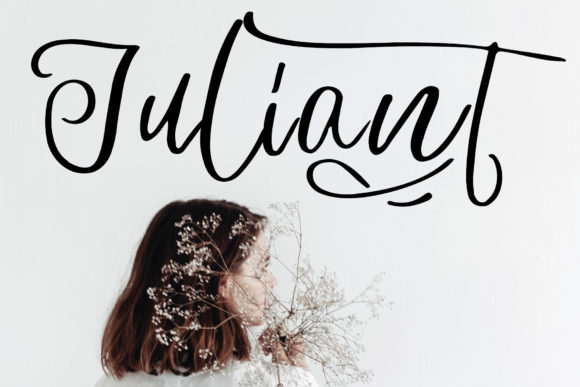
In a world saturated with mundane and predictable fonts, Juliant Font emerges as a dazzling beacon of originality and charm, promising to transform your branding endeavors into captivating works of art.
Juliant's exquisite script family dances across the page with an unmatched elegance, evoking a sense of timeless sophistication and effortless allure. Its meticulously crafted glyphs possess an organic flow, reminiscent of the graceful strokes of a calligrapher's brush, imbuing your designs with a touch of human warmth and artistry.
Unleash your creativity and let Juliant guide you on a typographical odyssey, where every letter becomes a visual masterpiece, and every word carries the weight of profound meaning. With Juliant as your font muse, your branding will transcend the ordinary, captivating your audience with its captivating beauty and undeniable personality.
Immerse yourself in the boundless possibilities that Juliant presents, allowing its intricate details and sweeping curves to weave a captivating narrative that speaks directly to the hearts of your customers. Create logos that command attention, social media posts that spark engagement, and marketing materials that leave a lasting impression.
Juliant is not merely a font; it's an invitation to embark on a creative journey, where your imagination knows no bounds. Its versatile nature lends itself effortlessly to a myriad of design applications, from elegant invitations to whimsical greeting cards, from eye-catching posters to heartfelt letters. With Juliant as your creative companion, you'll discover untapped depths of expression and forge an enduring connection with your audience.
As you explore the depths of Juliant's glyphs, you'll uncover a treasure trove of hidden gems, each character imbued with its own distinct personality and charm. Whether you seek to convey the timeless elegance of a classic script or the playful exuberance of a modern handwritten note, Juliant possesses the versatility to fulfill your every typographical desire.